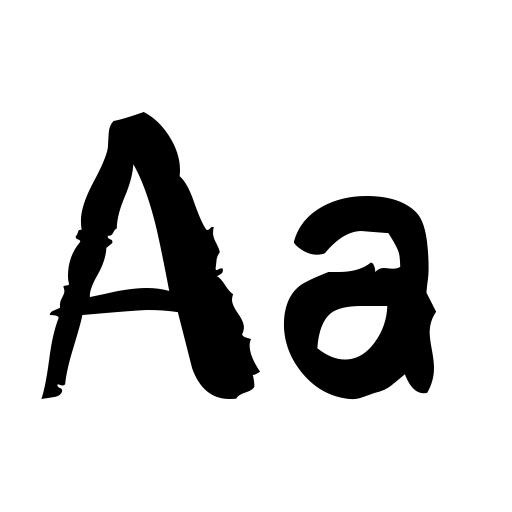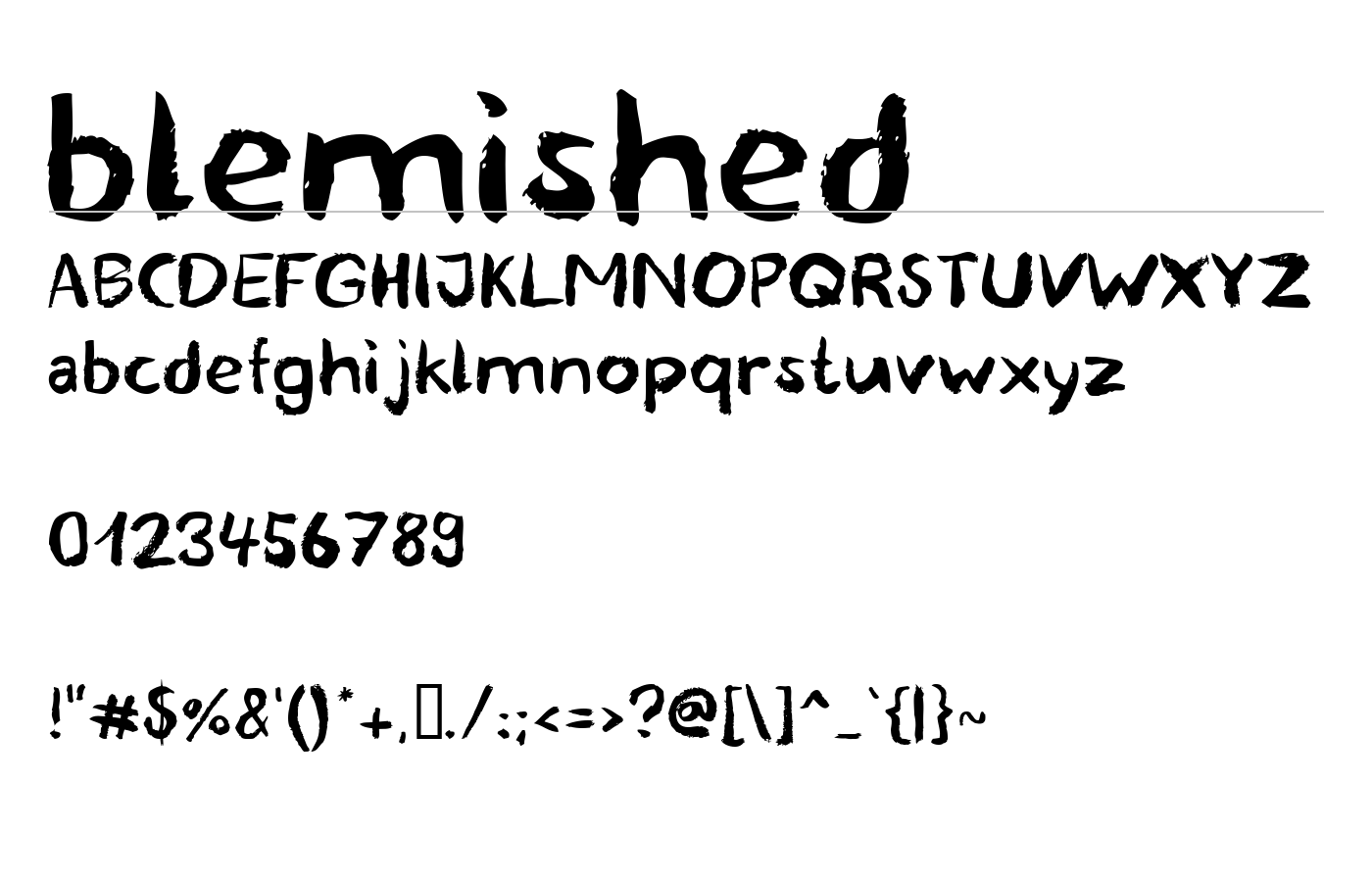
Blemished Font is a bold, hand-drawn sans serif with a rough, textured style that gives it a raw and imperfect character. Its uneven edges and playful irregularities create an organic, casual feel, making it ideal for creative projects that want to convey a handmade, quirky, or artistic vibe. This font works well for posters, logos, and packaging where a bold, expressive statement is needed.
blemished Font
About blemished Font